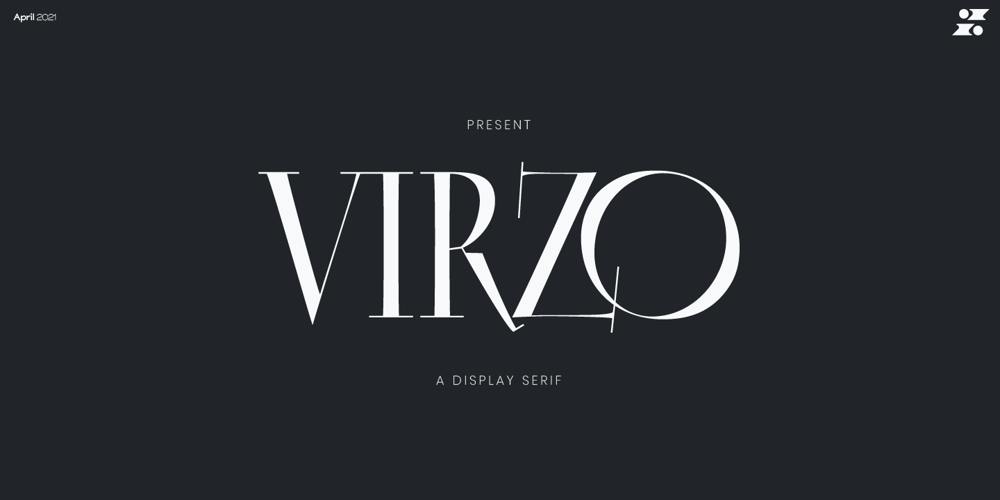
Virzo Font Family was designed by Khair Unnas and published by Khaiuns. Virzo contains 1 styles and family package options. Virzo is a modern serif with loads of style. A unique modern font that is a mix of old and new. It’s soft curves mixed with high contrast glyphs lend it self to both feminine and masculine qualities. Virzo Perfect for branding projects, Logo design, Clothing Branding, product packaging, magazine headers, or simply as a stylish text overlay to any background image.Virzo has more than 60 upper and lower case ligatures that to give your logo, business card and another project to a unique vintage look.I hope you have a blast using Virzo.Thanks for use this font ~ Khaiuns